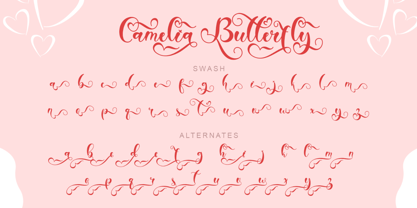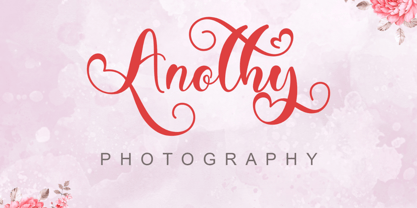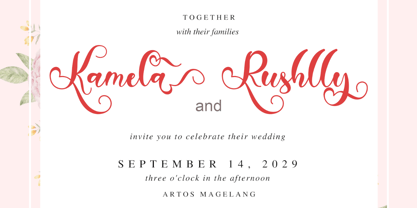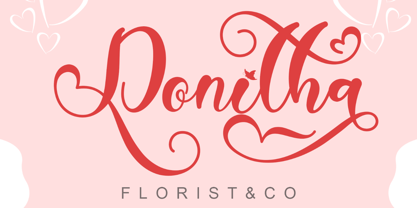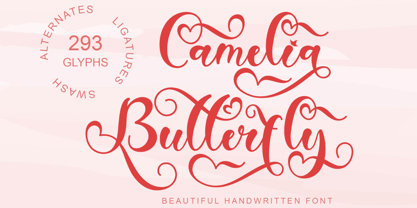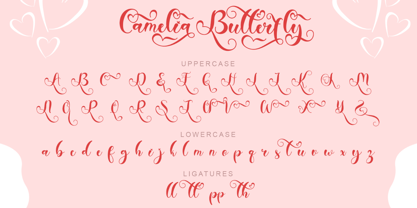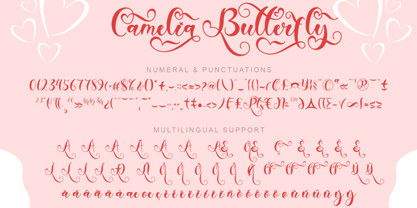
Camelia Butterfly
by Yoga Letter
The Camelia Butterfly Font Family was designed by Isroni Yoga Prasetya and published by Yoga Letter. Camelia Butterfly contains 1 styles. More about this family
"Camelia Butterfly" is a beautiful and lovely handwritten font. It comes with uppercase, lowercase, swashes, alternate letters, numbers, punctuation, and multilingual support. It is perfect for use on Valentine's Day, wedding, invitation, photography, Christmas, winter, party, birthday, spring, and more.
Designers: Isroni Yoga Prasetya
Foundry: Yoga Letter
Camelia Butterfly